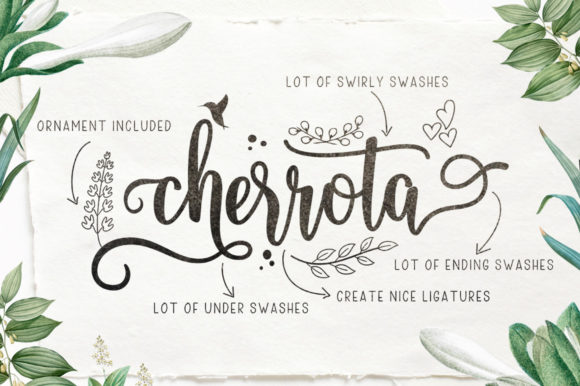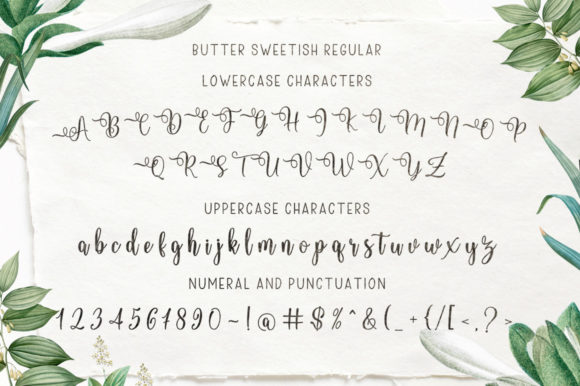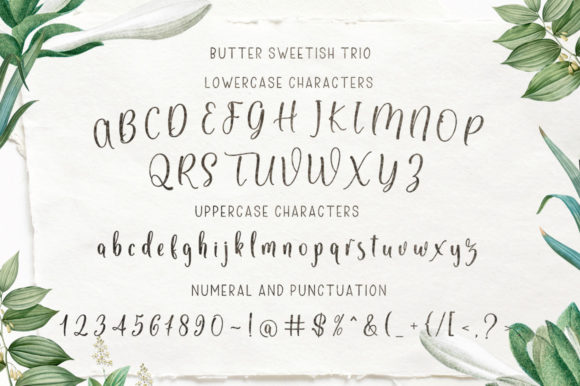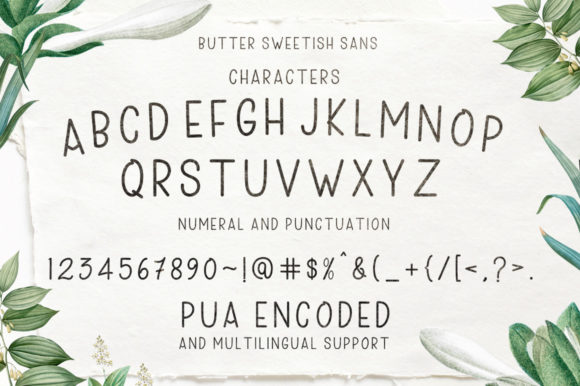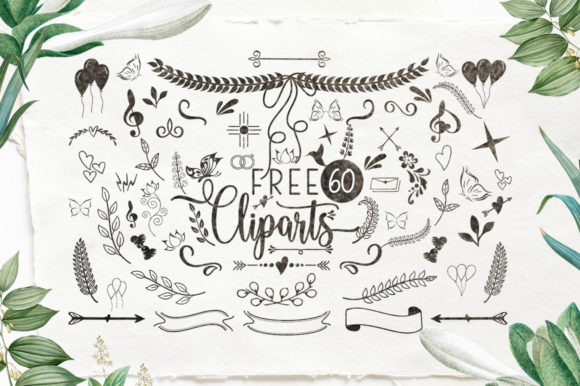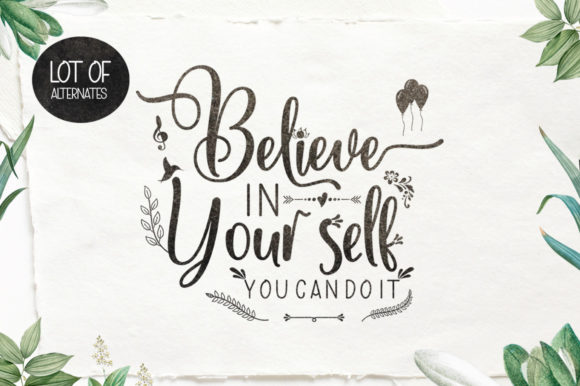
The Perfect Match for Your Next Creative Project
Have you ever found yourself staring at a blank page, struggling to bring your vision to life? You’re not alone. We’ve all been there – waiting for that perfect combination of style and substance to click into place. For designers, finding the right font can be the difference between a good project and a great one. That’s why we’re excited to introduce you to the Butter Sweetish Font, a trio of masterfully designed fonts that will take your creative ideas to new heights.
Butter Sweetish Font is more than just a pretty face – it’s a versatile tool that combines a beautiful script, a clean sans serif, and a set of delightful dingbats to create a truly unique visual experience. With its PUA encoding, you’ll have easy access to all the glyphs and swashes you need to make your design pop. Whether you’re working on a logo, a brochure, or a website, the Butter Sweetish Font is sure to be a valuable addition to your design arsenal.
Butter Sweetish Font Key Features
- Font Family: Butter Sweetish Font
- Unique Characteristics: The font features a unique blend of playful and elegant design elements, making it suitable for various creative projects, including food packaging, branding, and advertising.
Butter Sweetish Font Review
Overall, I found the “Butter Sweetish Font” to be an interesting choice for those looking for a playful and unique font. There are several aspects that work well: ✨ It’s perfect for creating a whimsical atmosphere in branding, marketing materials, or even children’s content. ✨ The font is highly legible, making it suitable for body text and headings. ✨ It’s also quite versatile and can be used for various design styles, from modern to vintage.
- Playful and unique design
- Highly legible for body text and headings
- Versatile for various design styles
- May not be suitable for formal or professional projects
- Can be overwhelming if used extensively in large blocks of text
- Limited in its use for technical or instructional content
- Not ideal for small text sizes due to potential readability issues
Overall, I would rate the “Butter Sweetish Font” 3.5 out of 5 stars. While it’s a great choice for certain projects, its limitations should be carefully considered before making a final decision.
For best results, use Butter Sweetish Font in designs that require a playful and whimsical feel. It pairs well with bright colors and bold graphics.
Butter Sweetish Font is commonly used in:
- Birthday invitations and party decorations.
- Children’s book covers and illustrations.
- Food and dessert labels.
- Wedding invitations and decorations.
Great Vibes Font is a modern calligraphy font that features elegant and flowing lines. It’s perfect for designs that require a touch of sophistication and romance. When to use: Wedding invitations, wedding stationery, and other romantic designs.
Great Vibes Font is more elegant and refined compared to Butter Sweetish Font, which has a more playful and whimsical feel. Great Vibes Font is also more versatile and can be used for a wide range of designs, from formal to informal.
Carolyna Pro Font is a modern script font that features a mix of elegant and casual elements. It’s perfect for designs that require a touch of sophistication and playfulness. When to use: Branding, advertising, and other designs that require a strong visual identity.
Carolyna Pro Font is more modern and edgy compared to Butter Sweetish Font, which has a more classic and timeless feel. Carolyna Pro Font is also more versatile and can be used for a wide range of designs, from formal to informal.
Alex Brush Font is a beautiful script font that features a mix of elegant and whimsical elements. It’s perfect for designs that require a touch of sophistication and playfulness. When to use: Stationery, branding, and other designs that require a strong visual identity.